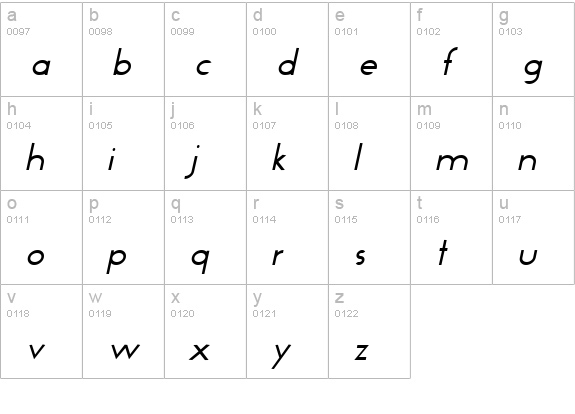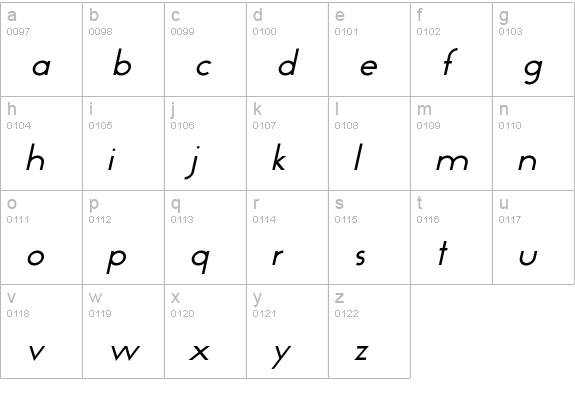
Compass Italic Font Details
Compass Italic is a distinctive, italic variant in the Compass typeface family \xE2\x80\x94 well suited to design and typography projects.
Compass Italic is a stylish and elegant font that exudes sophistication and charm. With its slanted design and graceful curves, this font is perfect for adding a touch of sophistication to any project. The italicized style adds a sense of movement and fluidity, making it ideal for use in headings, quotes, and other attention-grabbing text. What sets Compass Italic apart is that it is available for free download at FontsMarket.com, making it accessible to all designers and creatives looking to elevate their projects with a touch of class. Whether you're working on a branding project, a website design, or a creative presentation, Compass Italic is sure to add a touch of elegance and flair. Download Compass Italic today and take your designs to the next level.